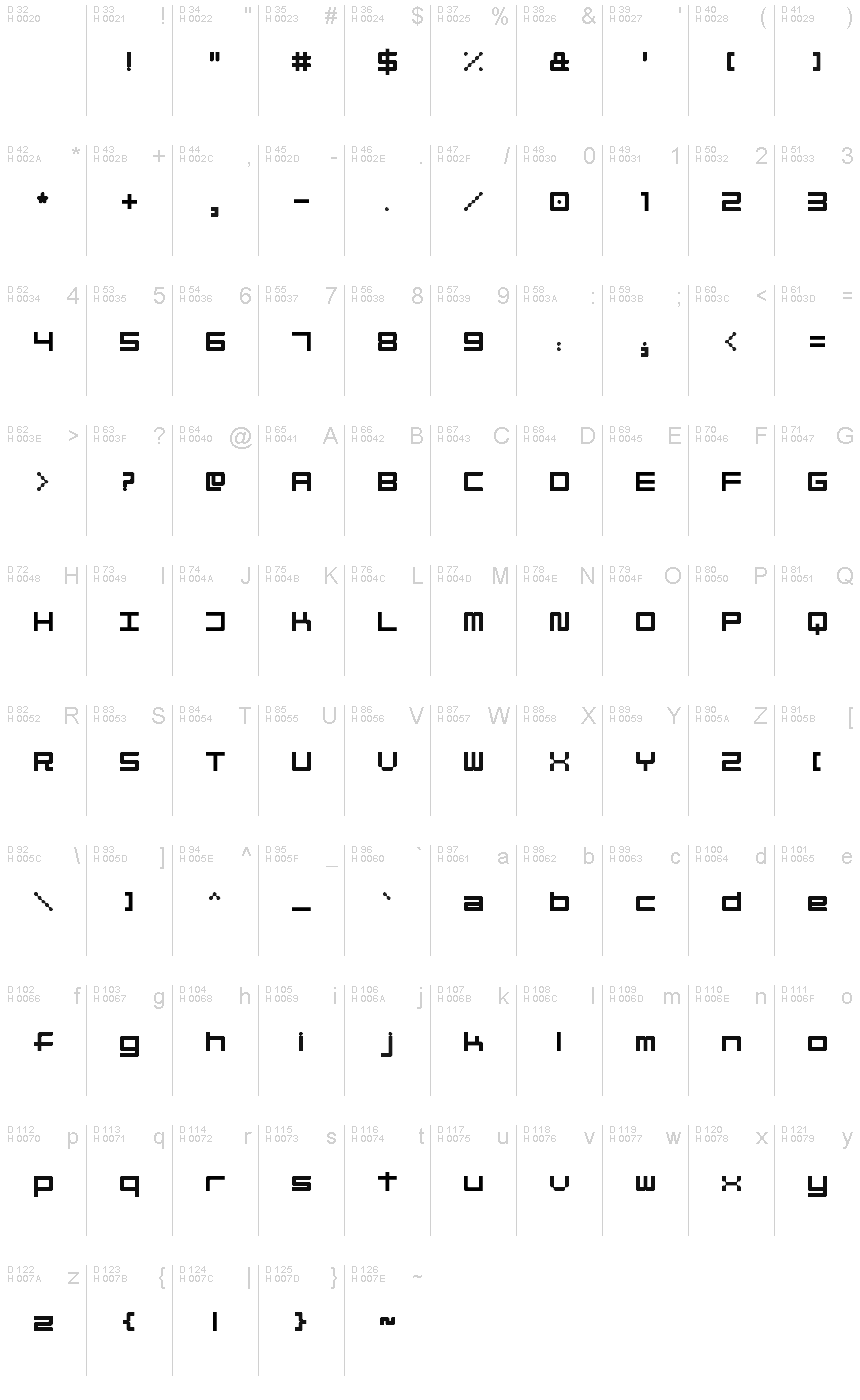
Linesquare Rounded Extended by nrkn of FontShop International GmbH is a free futuristic display font built from broad, squared forms with rounded corners. The even strokes give the lettering a modular, screen-ready look.
Technology branding is its strongest fit, especially for products that want a clean retro-futurist edge. It also suits game menus and music artwork, where the wide geometric letters can function like interface graphics rather than neutral text. Posters and event signage offer another useful setting for its sleek industrial shapes.